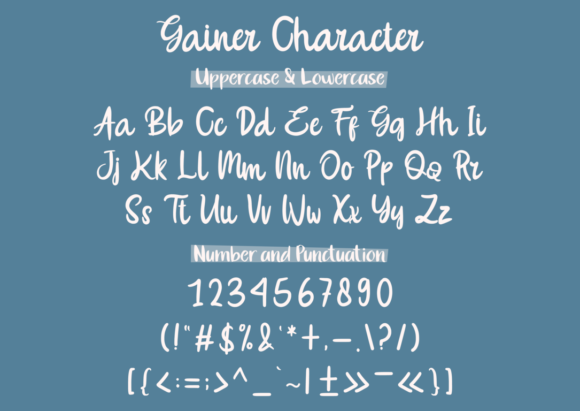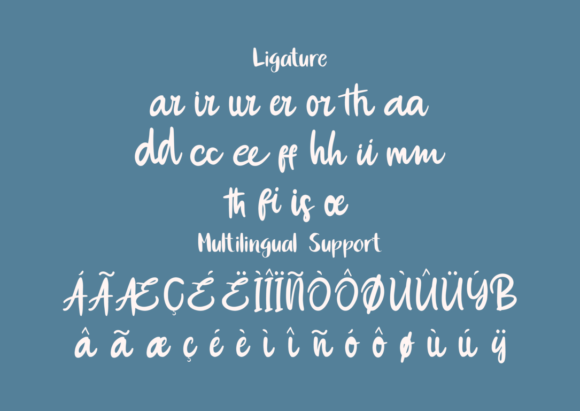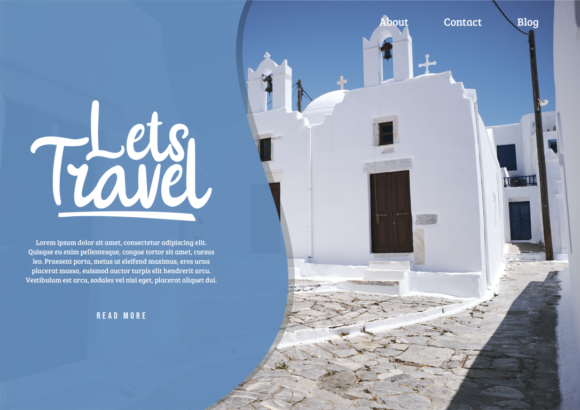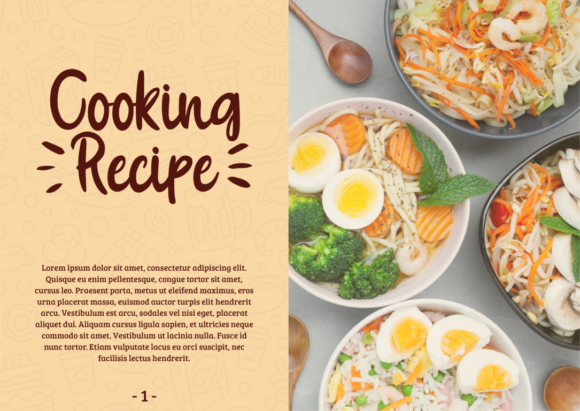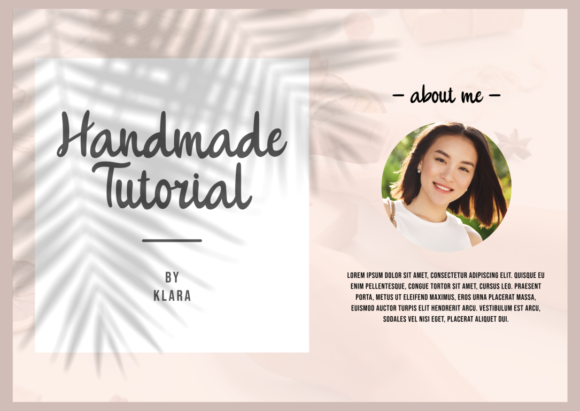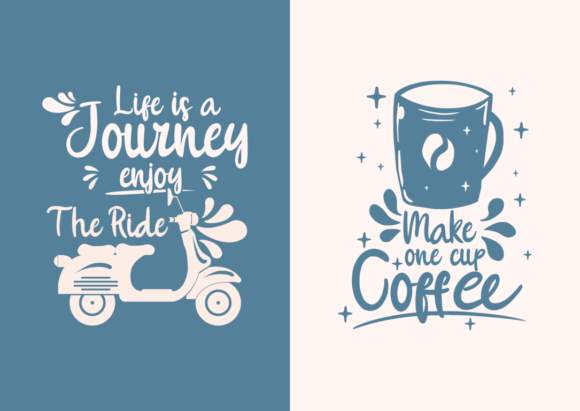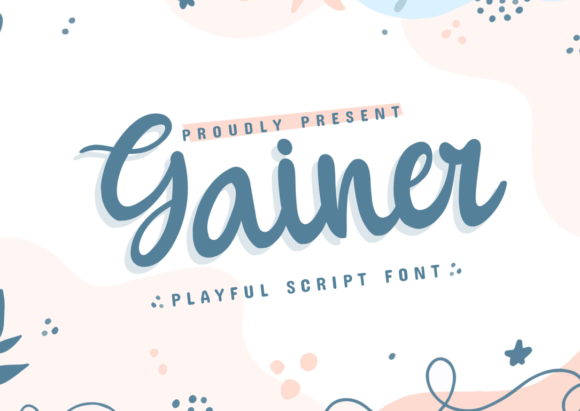
Gainer Font: The Playful and Versatile Handwritten Font for Your Creative Projects
Are you looking for a font that can add a touch of playfulness and elegance to your designs? Look no further than the Gainer Font! This beautifully crafted handwritten font is perfect for designers and crafters who want to create stunning visuals that capture the attention of their audience. In this article, we’ll dive into the world of Gainer Font and explore its features, benefits, and uses.
What is Gainer Font?
Gainer Font is a playful and cursive handwritten font that boasts distinct and well-balanced letters. Its unique style makes it a masterpiece that can elevate any design project. Whether you’re working on a logo, branding materials, or social media graphics, Gainer Font is an excellent choice. Its versatility and charm can add a personal touch to your designs, making them stand out from the crowd.
Key Features of Gainer Font
- Playful and Cursive Style: Gainer Font features a playful and cursive handwritten style that is perfect for designs that require a touch of elegance and sophistication.
- Distinct and Well-Balanced Letters: Each letter in Gainer Font is carefully crafted to ensure that it is distinct and well-balanced, making it easy to read and recognize.
- Versatile: Gainer Font is incredibly versatile and can be used for a wide range of design projects, from logos and branding materials to social media graphics and more.
Benefits of Using Gainer Font
So, why should you choose Gainer Font for your design projects? Here are just a few benefits of using this amazing font:
- Adds a Personal Touch: Gainer Font can add a personal touch to your designs, making them more relatable and engaging to your audience.
- Enhances Creativity: The playful and cursive style of Gainer Font can inspire creativity and help you think outside the box when it comes to your designs.
- Easy to Read: Despite its playful style, Gainer Font is easy to read and understand, making it perfect for designs that require a clear message.
Uses of Gainer Font
Gainer Font is a versatile font that can be used for a wide range of design projects, including:
- Logo Design: Gainer Font is perfect for creating unique and memorable logos that capture the essence of your brand.
- Branding Materials: Use Gainer Font to create stunning branding materials, such as business cards, brochures, and letterheads.
- Social Media Graphics: Gainer Font can add a touch of personality to your social media graphics, making them more engaging and shareable.
- Stationery: Create beautiful stationery, such as invitations, thank-you cards, and gift tags, using Gainer Font.
Tips for Using Gainer Font
Here are a few tips for using Gainer Font effectively in your design projects:
- Pair it with Other Fonts: Experiment with pairing Gainer Font with other fonts to create a unique and visually appealing design.
- Use it for Headings: Use Gainer Font for headings and titles to add a touch of elegance and sophistication to your designs.
In conclusion, Gainer Font is a playful and versatile handwritten font that can add a touch of elegance and sophistication to your design projects. Its distinct and well-balanced letters make it a masterpiece that can elevate any design. With its wide range of uses and benefits, Gainer Font is an excellent choice for designers and crafters who want to create stunning visuals that capture the attention of their audience. So, fall in love with Gainer Font and use it to create spectacular designs that showcase your creativity and style!